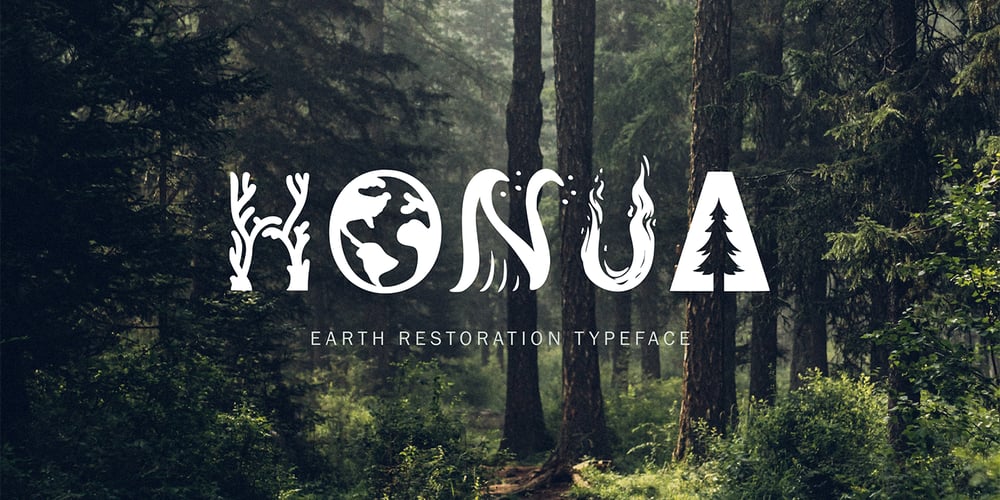
Honua
Honua font
Honua Font Family was designed by Daniel OGuin and published by EternalEyes. Honua contains 2 styles and family package options. Honua means “Earth” in Hawaiian. Honua is a decorative typeface inspired by nature, and gives back to it by planting trees and corals around the world for every font sold.